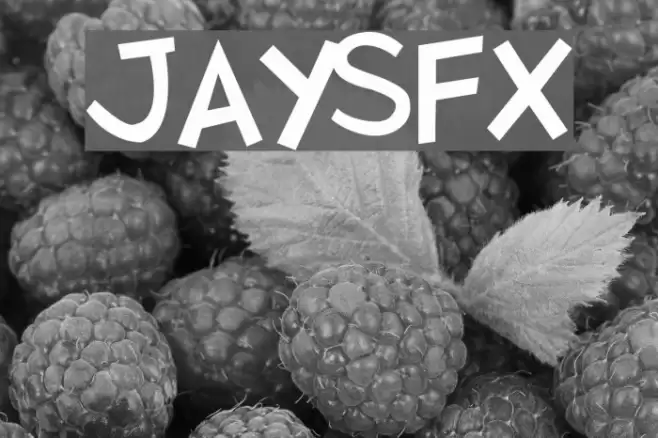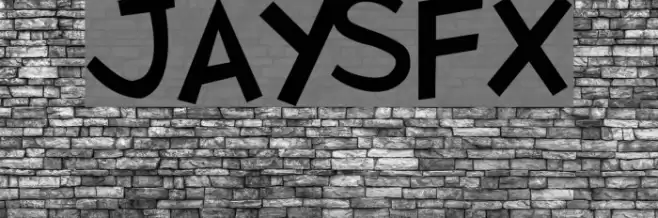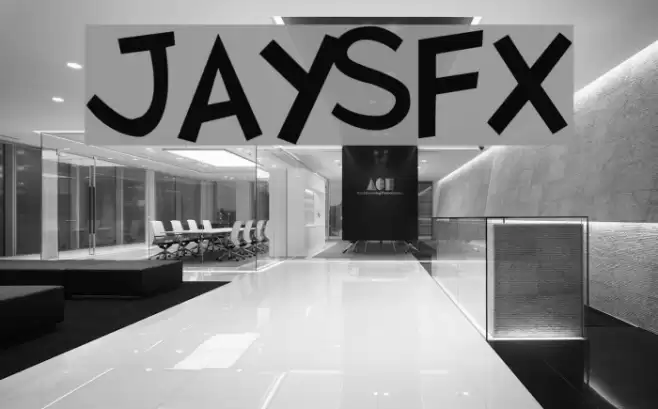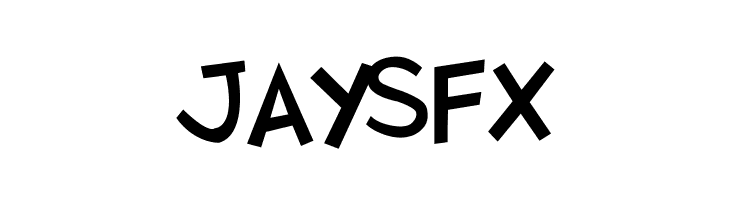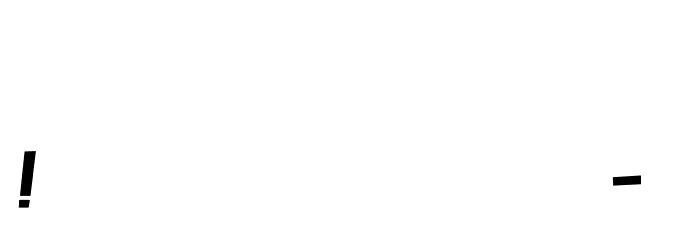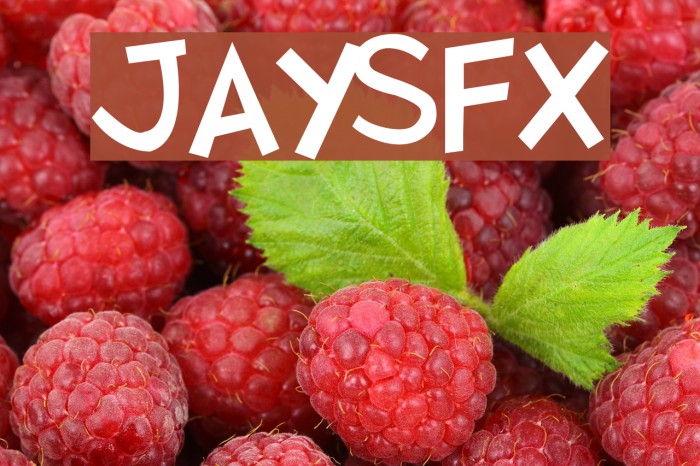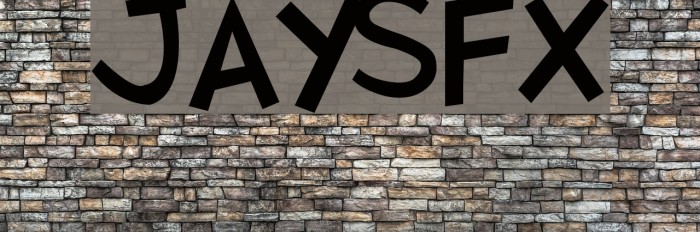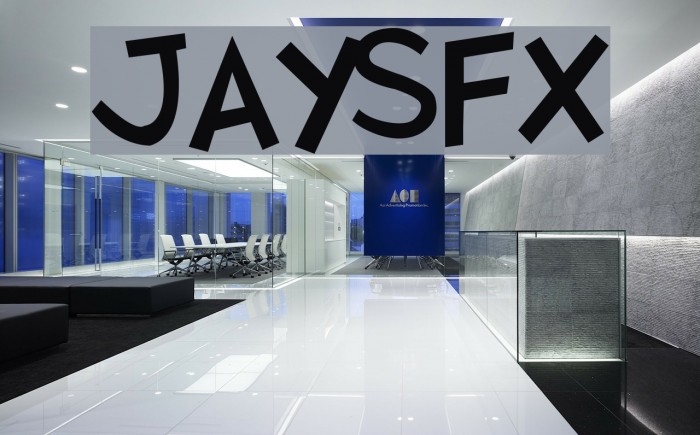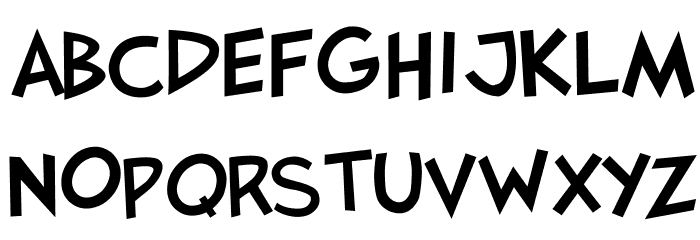
JaySFX Font
JaySFX Description
This font features a playful and energetic style, characterized by its bold and slightly irregular letterforms. The uppercase letters exhibit a dynamic, hand-drawn appearance with varying stroke widths that add a sense of movement and personality. The overall design is informal and lively, making it suitable for projects that aim to convey a sense of fun and creativity. The spacing between characters is relatively tight, enhancing the compact and cohesive look of the text. The font's unique style is ideal for capturing attention and adding a whimsical touch to any design.
A playful, bold font with dynamic, hand-drawn letterforms from Uncategorized fonts.
- Proposed Projects: Ideal for children's books, comic strips, playful branding, and creative posters.
- Character Spacing: Tight
- Overall Style: Playful, Energetic